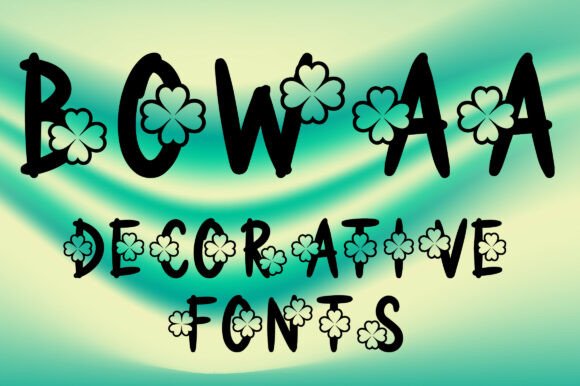
The Lucky Charm of Bowaa Font: Elevate Your Designs with Whimsy and Elegance
I’ll never forget the time I was working on a branding project for a new wellness center. I had the logo concept nailed, but I just couldn’t find the right font to complement it. The client wanted something that exuded positivity, elegance, and a touch of playfulness. That’s when I stumbled upon the Bowaa Font, and it was love at first sight! 💫
Inspired by the charming and symbolic lucky clover flowers, Bowaa Font brings a fresh and stylish touch to any design project. With its decorative style and whimsical flair, it’s perfect for designers, crafters, and creative hobbyists looking to add a dash of good fortune and imagination to their work.
• Unique and eye-catching design inspired by lucky clover flowers 🌿
• Perfect for logos, branding, invitations, posters, packaging, and social media graphics 📢
• Features uppercase English letters A–Z and numbers 0–9, giving you plenty of creative options 📝
• Adds a touch of positivity, elegance, and playfulness to any project 🌈
• Limited character set (only uppercase English letters and numbers) ⚠️
• May not be suitable for body text or long-form content due to its decorative nature 📄
The Designer Inspiration Behind Bowaa Font
The story behind Bowaa Font begins with a designer who was fascinated by the symbolism and beauty of lucky clover flowers. Inspired by the charm and elegance of these flowers, the designer created a font that would bring a touch of good fortune and imagination to design projects. With Bowaa Font, you can add a dash of positivity and whimsy to your work, making it perfect for a wide range of creative applications.
Q: What type of projects is Bowaa Font best suited for?
A: Bowaa Font is perfect for logos, branding, invitations, posters, packaging, social media graphics, and more. Its decorative style adds a touch of elegance and playfulness to any project.
Q: Does Bowaa Font support OpenType features?
A: Yes, Bowaa Font supports OpenType features like stylistic alternates and glyphs, allowing you to experiment with different design options and create unique text.
Q: Can I use Bowaa Font for body text or long-form content?
A: While Bowaa Font is beautiful, it’s primarily designed for display text or short-form content. Its decorative nature may make it less suitable for body text or long-form content.